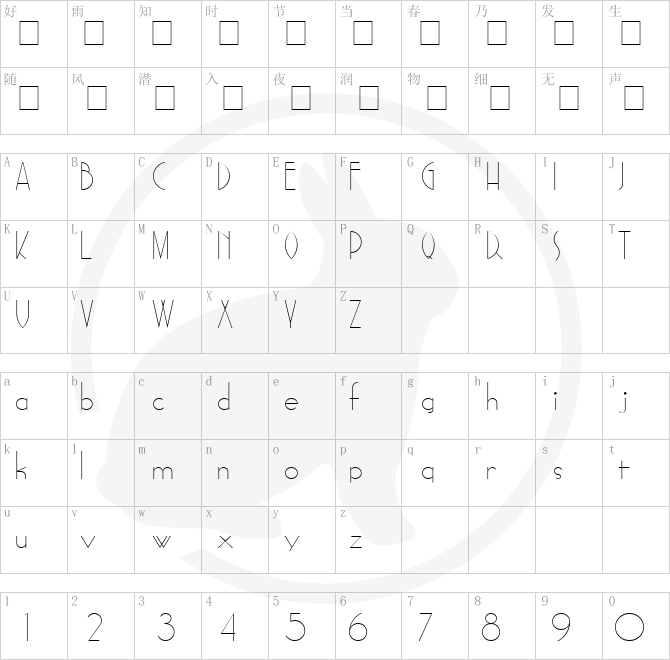
- Font Name:Sadelle
Sadelle.ttf is a very beautiful artistic font, Sadelle.ttf is widely used in the design and printing of various books and pictures,Sadelle.ttf has a strong visual impact,Sadelle.ttf is a commonly used font in newspapers, magazines and books, and is used in posters, e-commerce Poster design, store design, logo design, font design and other fields.Sadelle.